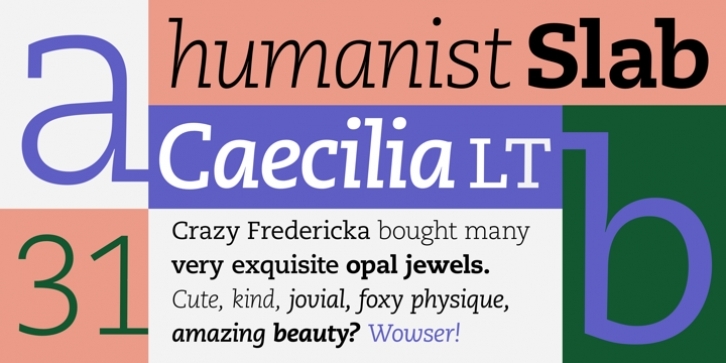
This Linotype typeface was designed in 1990 by Peter Matthias Noordzij (PMN), and named for his wife, Caecilia. Because its shapes are humanist rather than geometric, PMN Caecilia is easier on the readers eye and so more useful as a text typeface than most slab serif designs.